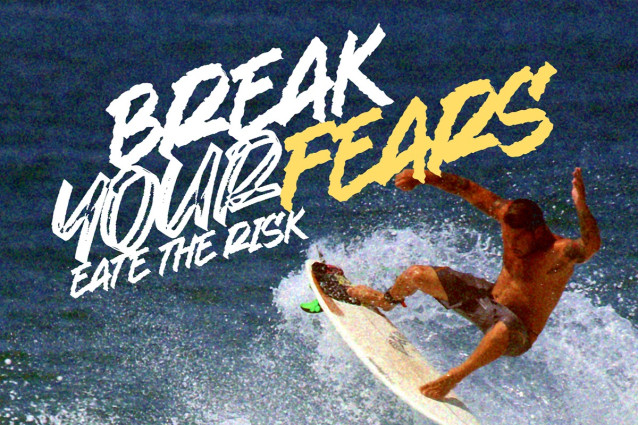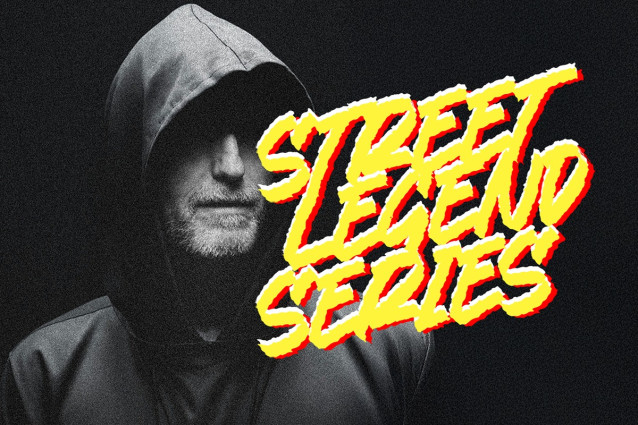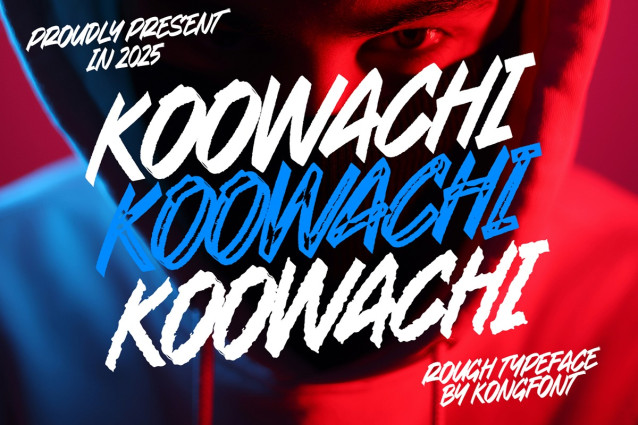
Koowachi Script Font
Koowachi Script Font a rugged and dynamic typeface that adds raw character to your designs. With its textured, rough aesthetic, this font is perfect for projects that demand a bold, handcrafted feel.